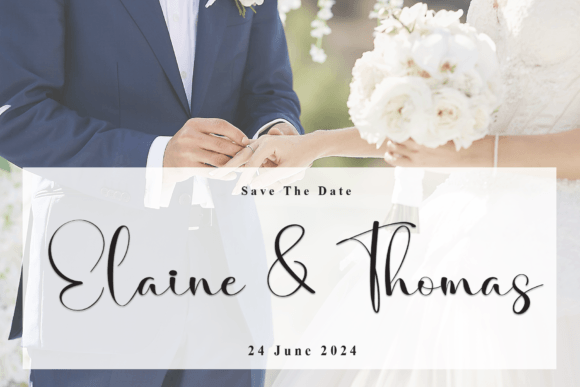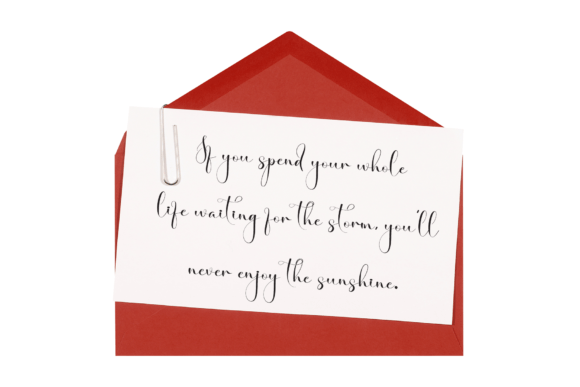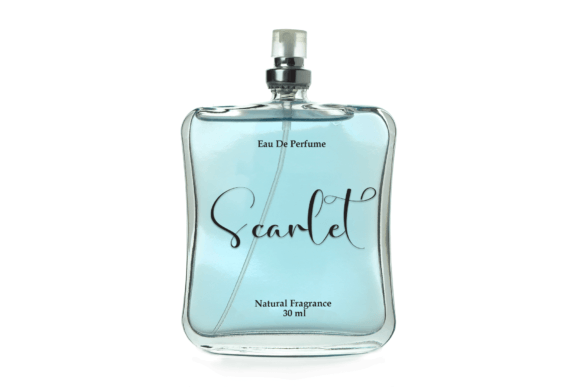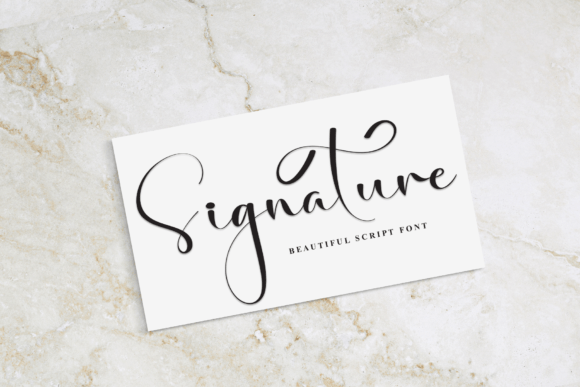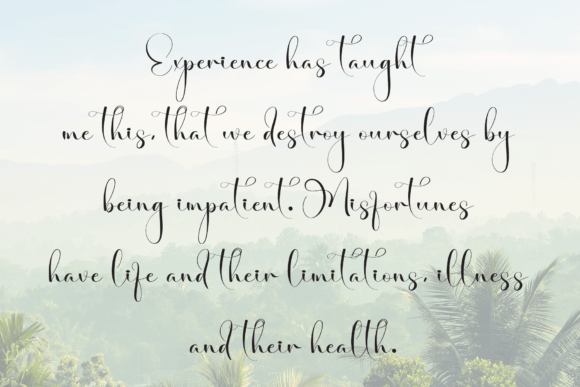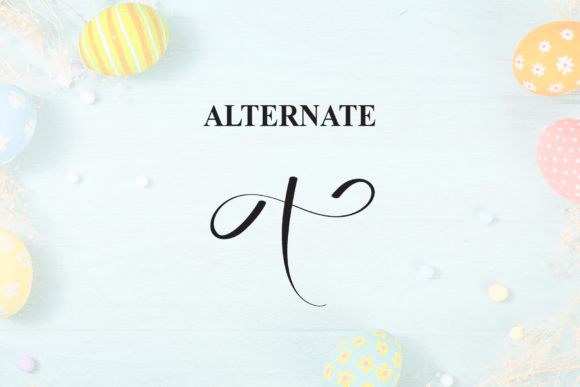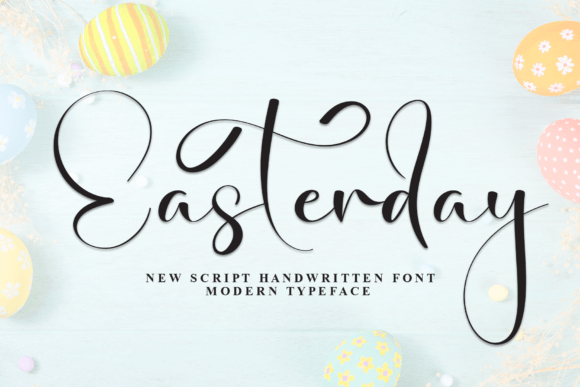
Easterday Font: Elevate Your Creativity with Elegance
Are you a designer, crafter, or DIY enthusiast looking for a font that can add a touch of magic to your creative projects? Look no further than Easterday Font, a beautiful script font that combines elegance with a whimsical feel. In this article, we’ll dive into the world of Easterday Font and explore its features, uses, and benefits for designers and crafters alike.
What is Easterday Font?
Easterday Font is a carefully crafted script font that exudes elegance and sophistication. With its flowing lines and intricate details, this font is perfect for adding a touch of luxury to any creative project. Whether you’re working on a branding campaign, a DIY project, or simply looking for a font to enhance your Instagram feed, Easterday Font is an excellent choice.
Features of Easterday Font
Easterday Font boasts a range of features that make it an ideal choice for designers and crafters. Some of its key features include:
• Elegant Script Style: Easterday Font features a beautiful script style that’s perfect for creating eye-catching headlines, titles, and quotes.
• Whimsical Touch: This font has a touch of whimsy, making it ideal for creative projects that require a dash of personality.
• Highly Versatile: Easterday Font can be used for a wide range of projects, from branding and advertising to DIY crafts and social media graphics.
• Easy to Read: Despite its elegant and cursive style, Easterday Font is highly legible, making it perfect for body text and captions.
Uses of Easterday Font
Easterday Font is an incredibly versatile font that can be used for a wide range of creative projects. Here are some ideas to get you started:
• Instagram Graphics: Add a touch of elegance to your Instagram feed with Easterday Font. Use it to create eye-catching captions, quotes, and stories.
• DIY Projects: Easterday Font is perfect for DIY projects, such as crafting, scrapbooking, and paper crafting.
• Branding and Advertising: Use Easterday Font to create stunning brand identities, logos, and advertising materials that exude elegance and sophistication.
• Calligraphy and Hand Lettering: Easterday Font is an excellent choice for calligraphy and hand lettering projects, adding a touch of magic to your artwork.
Benefits of Using Easterday Font
So why choose Easterday Font for your creative projects? Here are some benefits of using this beautiful script font:
• Stand Out from the Crowd: Easterday Font is a unique and eye-catching font that will help your creative projects stand out from the crowd.
• Elevate Your Brand: Use Easterday Font to elevate your brand identity and create a lasting impression on your audience.
• Increase Engagement: The elegant and whimsical style of Easterday Font is sure to capture the attention of your audience and increase engagement.